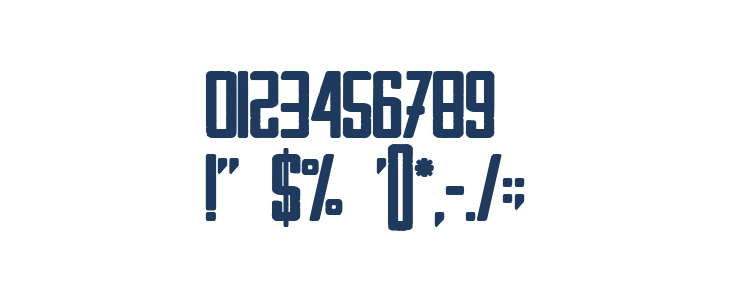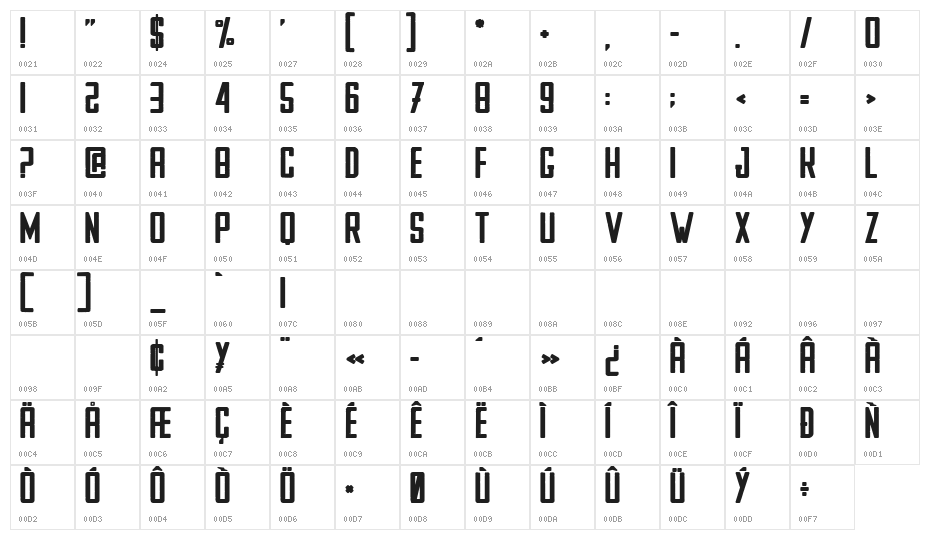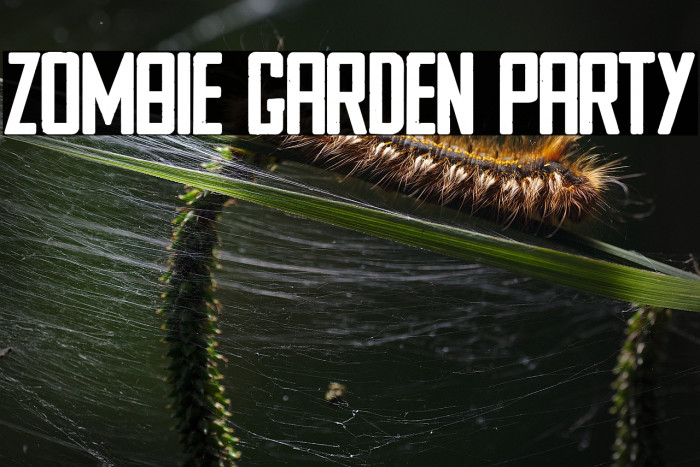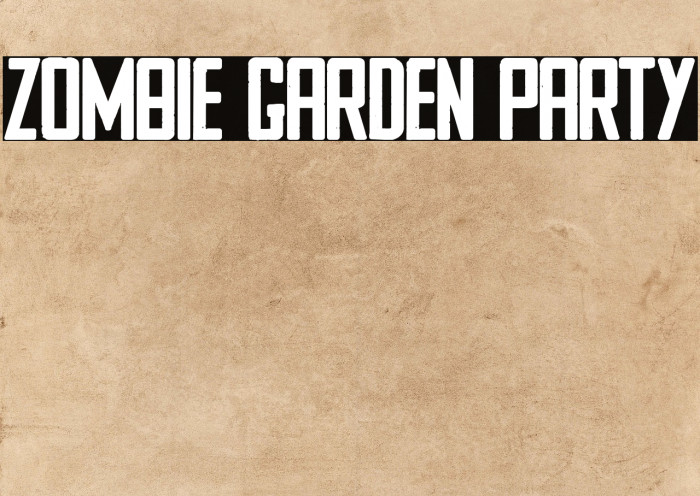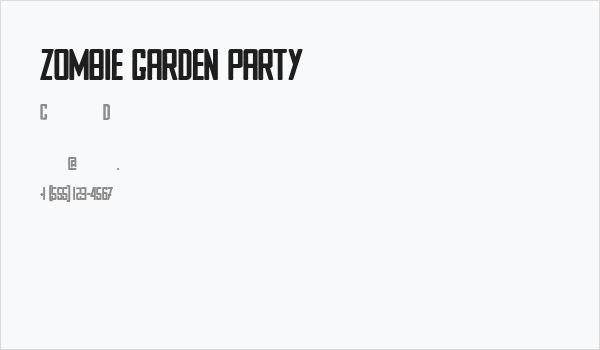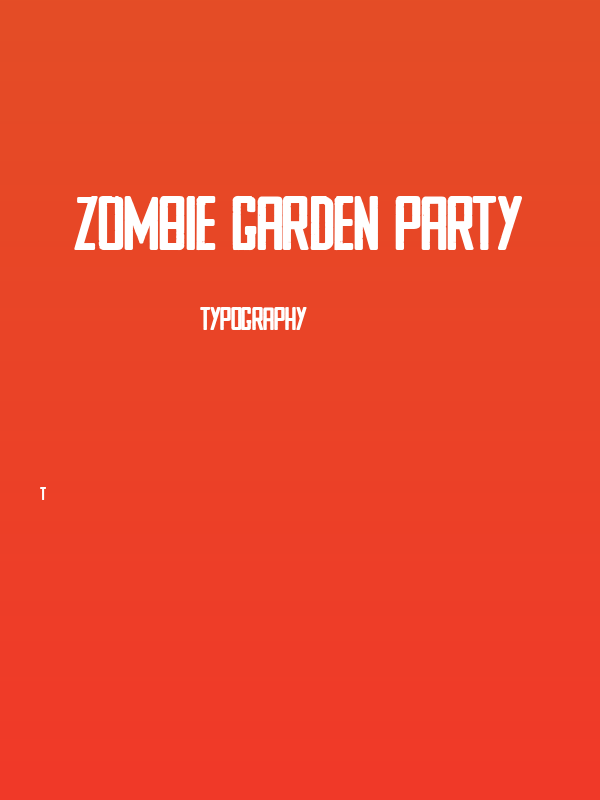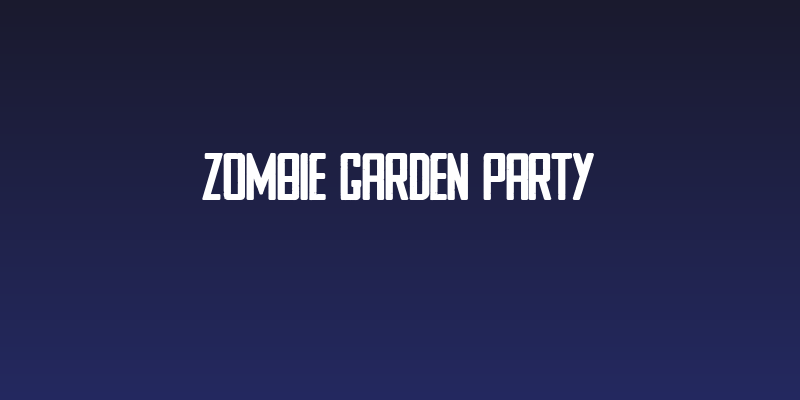
ZOMBIE GARDEN PARTY Font
ZOMBIE GARDEN PARTY Description
This font features a bold and impactful design with a slightly distressed appearance, giving it a rugged and edgy feel. The characters are uniformly tall and narrow, with consistent stroke thickness throughout, contributing to a strong and cohesive look. The uppercase letters are prominent and commanding, while the numerals and special characters maintain the same boldness and style. This font's unique character is enhanced by its slightly rough edges, adding a touch of grunge and personality. It's perfect for projects that require a bold statement and a touch of unconventional flair.